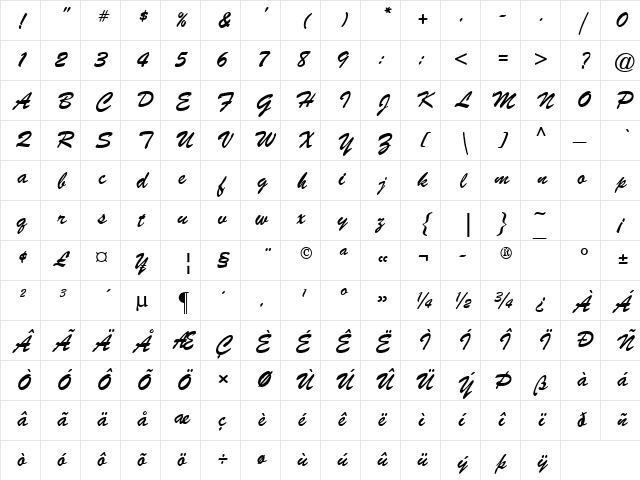
Brush Script Bold
Brush Script Family
Brush Script Bold
Complete Brush Script Bold glyph index. Displaying only characters natively supported by Brush Script Bold font.
Design Context for Brush Script
Brush Script flows with the natural rhythm of handwritten lettering, making it ideal for designs that call for warmth and personal expression. Its bold stroke weight gives it real presence on the page.
Font Pairing: Combine Brush Script with a simple geometric sans for maximum contrast - the tension between flowing curves and clean structure is a classic typographic pairing.
Pro Tip: Use Brush Script for short runs of text - names, titles, or taglines. Extended body copy in script faces tires the eye quickly.